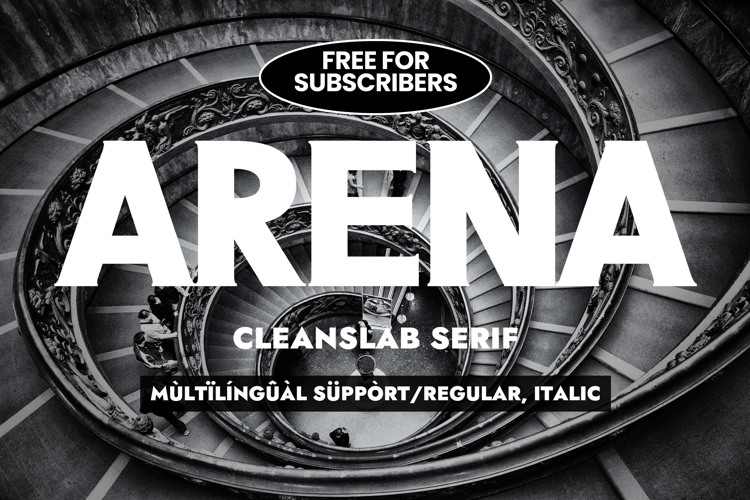
ARENA Font
ITALIC Regular Style
🎨 Font Name: Arena by Minimalist Art Studio
🎨 Font Description: Arena Cleanslab Serif is a bold, modern slab serif perfect for headlines, posters, and impactful designs.
✔ Complete Latin set + multilingual diacritics
✔ Alternates, stylistic sets & ligatures
✔ Numbers, small caps, and extended punctuation
✔ Bonus italics and family styles